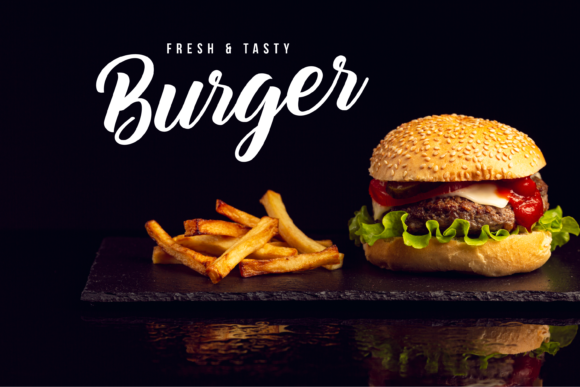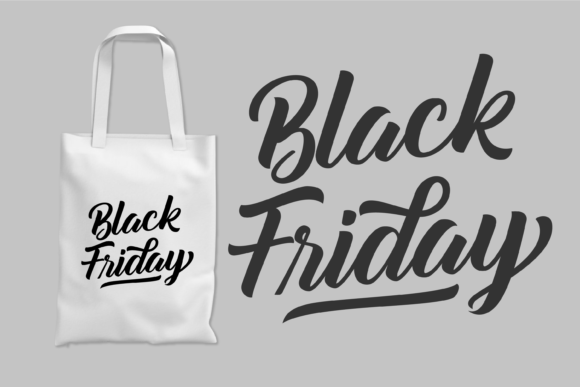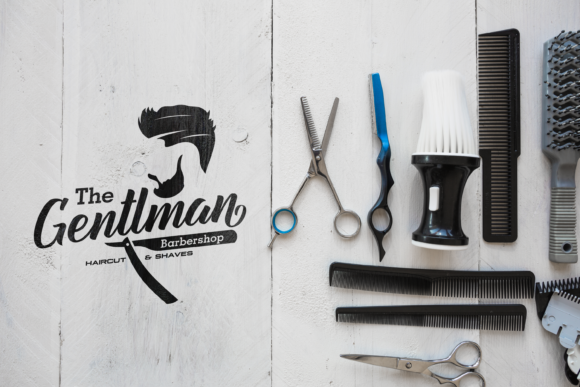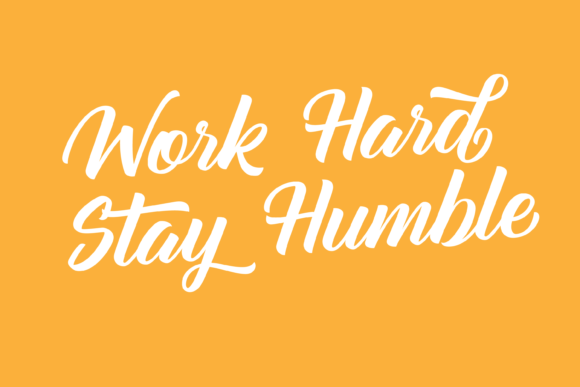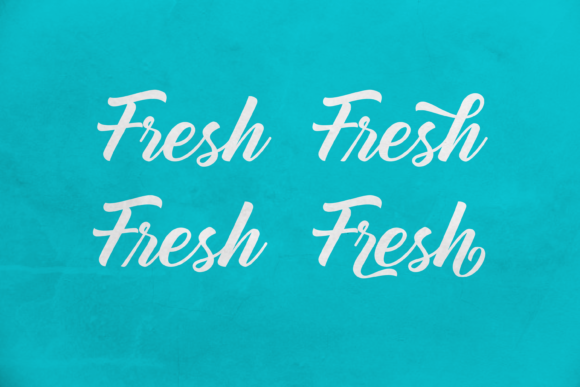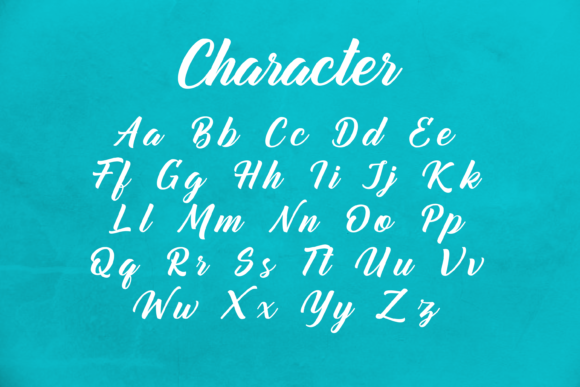
Introduction to Mountain Bridge Font
Have you ever found yourself stuck on a creative project, desperately searching for the perfect font to bring your vision to life? You’ve scoured through countless design resources, but nothing seems quite right. It’s like the font is hiding behind a busy background, waiting to be discovered. That’s where the Mountain Bridge Font comes in – a high-quality, handcrafted script font designed to make your creative projects shine.
With its casual charm and down-to-earth feel, the Mountain Bridge Font is the perfect addition to any design project. Whether you’re working on a standalone headline or trying to make a statement on a transparent background, this font is sure to deliver. And the best part? It’s available for free download, making it a valuable resource for designers of all levels.
So, what sets the Mountain Bridge Font apart from the rest? Its PUA encoding allows for easy access to all the great glyphs and swashes, while its wealth of special features – including alternate glyphs and ligatures – makes it a true favorite among designers. In this article, we’ll delve deeper into the world of Mountain Bridge Font and explore why it’s a must-have for any creative project.
Key Features of Mountain Bridge Font
- High-quality design: Mountain Bridge Font is a beautifully crafted font that can elevate any creative project with its unique and elegant design.
- Size: The font family includes multiple weights and styles, ranging from Light to Bold, providing a wide range of design options.
- Design resource: Mountain Bridge Font is a versatile design resource that can be used for a variety of creative projects, including logos, branding, and editorial design.
Honest Review: Mountain Bridge Font
I recently had the chance to work with the Mountain Bridge Font, and I must say it’s a great addition to any design resource collection. The font is free to download, which is always a plus in my book.
One of the things that works well with this font is its high-quality design. The lines are smooth, and the shapes are well-defined. It’s perfect for creating a unique and eye-catching visual identity for your next creative project.
Another great feature of this font is its transparent background. This makes it easy to use in a variety of design scenarios, from logos to typography-heavy compositions.
What I particularly like about the Mountain Bridge Font is its versatility. It can be used for both formal and informal designs, making it a great all-around choice for designers.
However, I did encounter a few limitations when working with this font. ⚠️ The font doesn’t come with a lot of character variations, which can make it feel a bit limited in terms of creative expression.
Overall, I’m quite impressed with the Mountain Bridge Font. It’s a great resource to have in your design toolkit, and I’d definitely recommend it to fellow designers.
Here are some key points to consider when working with the Mountain Bridge Font:
- High-quality design and smooth lines
- Versatile and suitable for both formal and informal designs
Tips for Getting the Most Out of Mountain Bridge Font
To get the most out of Mountain Bridge Font, use it in conjunction with a transparent background to create a unique and eye-catching visual effect. You can also experiment with different font sizes and styles to create a high-quality design.